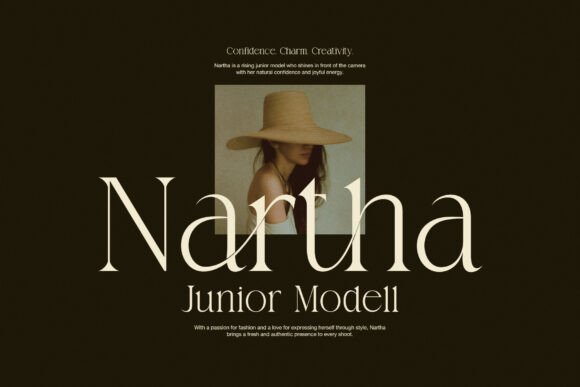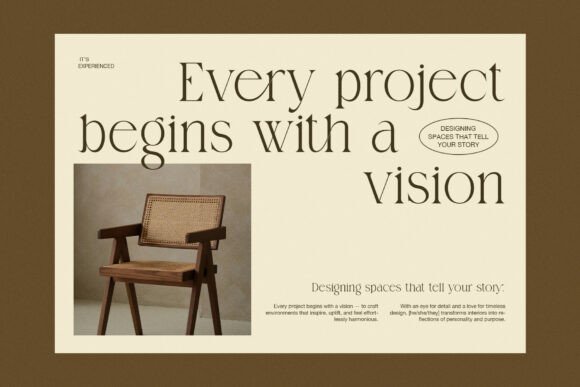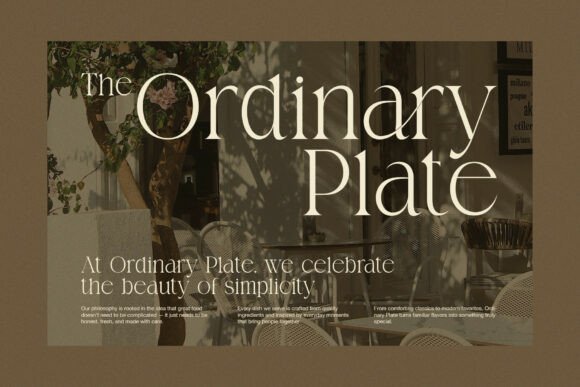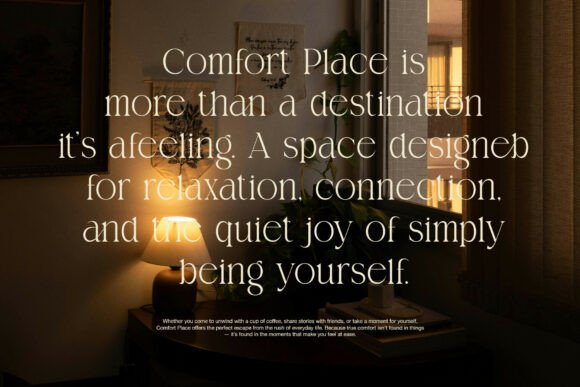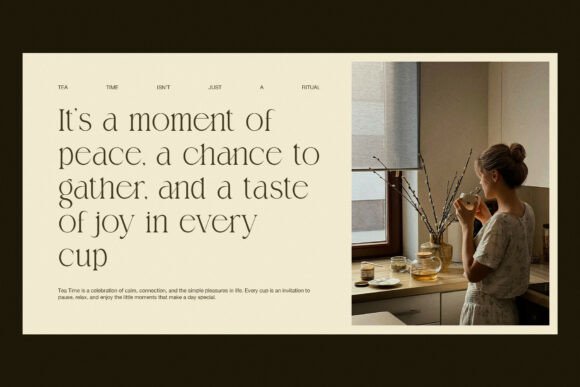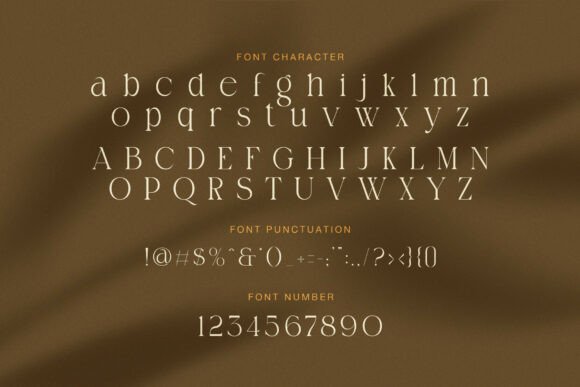
Introduction to Mandiry Font
Imagine stumbling upon the perfect font for your creative project, one that effortlessly elevates your design from ordinary to extraordinary. It’s that magical moment when everything comes together, and your vision is finally realized. For designers, finding the right font can be a game-changer, and today we’re excited to introduce you to the Mandiry Font – a stunning serif font that’s sure to become your go-to design resource.
With its elegant and refined aesthetic, the Mandiry Font is perfect for designers who crave a timeless look that’s both modern and warm. Its carefully crafted letterforms deliver a smooth and organic feel, making it an excellent choice for storytelling without visual tension. Whether you’re working on a print or digital project, the Mandiry Font’s strong readability ensures it looks great across various layouts, from headings to body text.
Key Features of Mandiry Font
- Features a high-quality design with a transparent background, allowing for seamless integration into any visual project.
- Includes a range of characters, including uppercase and lowercase letters, numbers, and special characters, making it a versatile design resource.
- The Mandiry Font is designed to be easy to read and use, with a clean and modern aesthetic that is perfect for a variety of creative projects.
Honest Review: Mandiry Font
As a designer, I’m always on the lookout for high-quality design resources that can elevate my creative projects. Recently, I stumbled upon the Mandiry Font, and I’m excited to share my honest review with you.
What works well: ✨ The Mandiry Font is incredibly versatile and comes in a range of styles, from modern to vintage. I love how easy it is to customize and use in various design applications. The font also includes a transparent background option, which is a game-changer for designing with complex backgrounds.
What doesn’t work so well: ⚠️ One limitation I’ve noticed is that the font can be a bit difficult to read at smaller sizes. This might not be an issue for larger-scale designs, but it’s worth keeping in mind when using it for smaller text.
Overall, I’m really impressed with the Mandiry Font. It’s a solid addition to any designer’s toolkit, and the free download option makes it an excellent value. With a little creativity, I’ve found the Mandiry Font to be a valuable resource for a wide range of design projects.
- High-quality, versatile font options
- Works well for modern and vintage designs
Mandiry Font
The Mandiry Font is a versatile and high-quality design resource that can elevate your creative project. With its transparent background, you can easily customize it to fit your needs.
Tips for Getting the Most Out of Mandiry Font
To maximize the potential of Mandiry Font, experiment with different font sizes, colors, and combinations to create unique and eye-catching designs.
Mandiry Font is ideal for creating visually appealing graphics, logos, and text overlays for social media, presentations, and marketing materials.